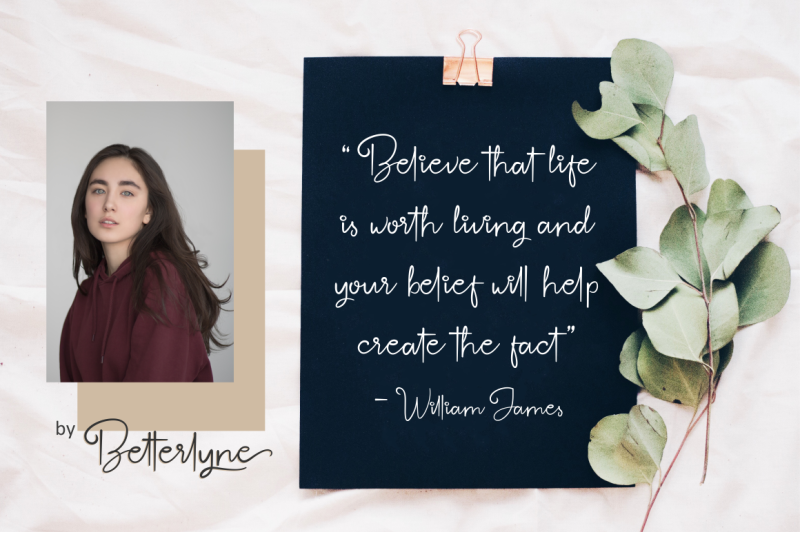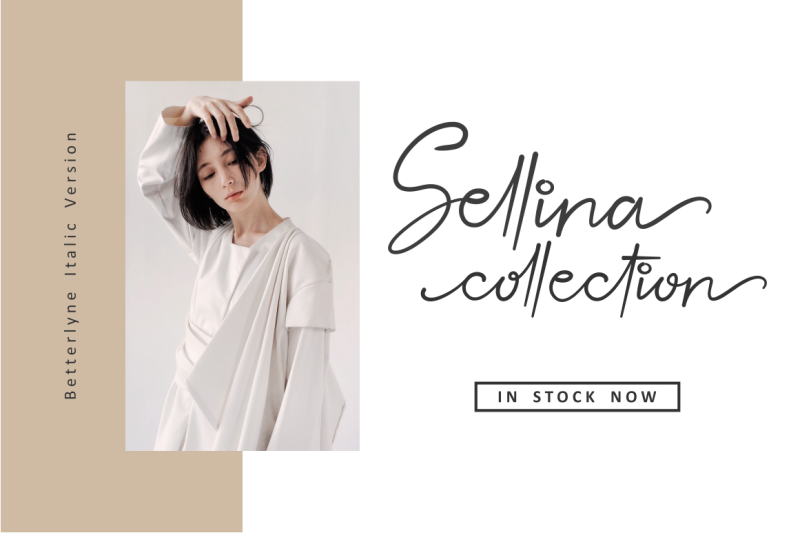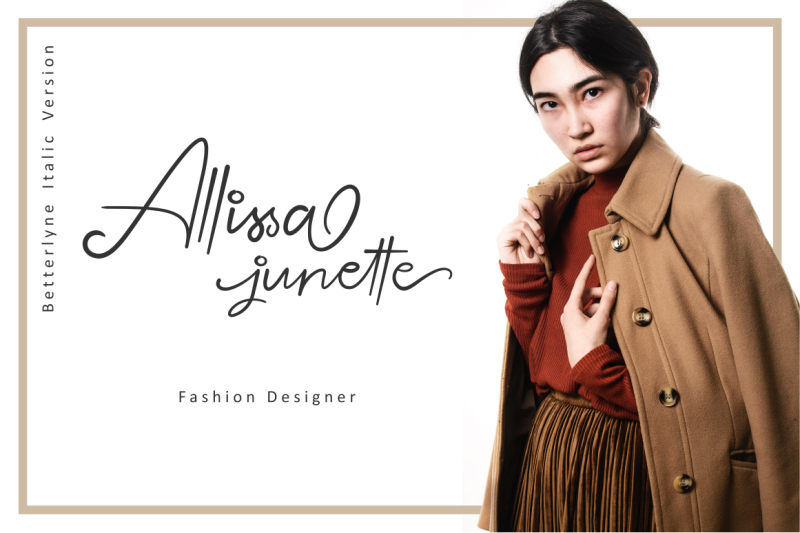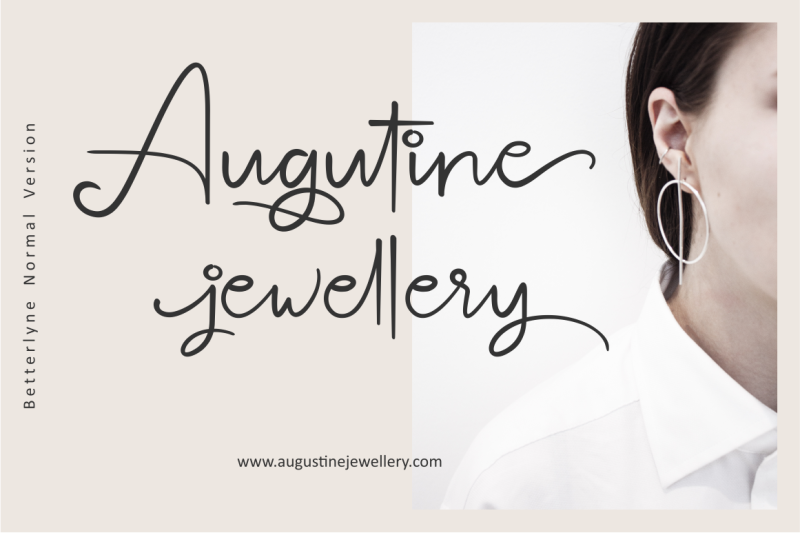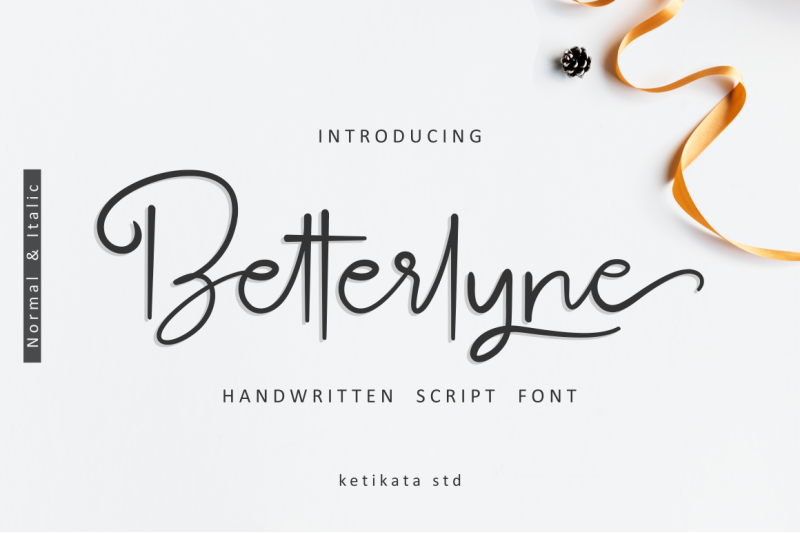
Betterlyne Script Font
Hello world..!! A new handwritten script font. This font are perfect for all types of your business projects. Introducing Betterlyne font! Betterlyne Script Font is a modern and elegant font with a lot of stylistic alternates for your beautiful project. It was made carefully so that each letter could be connected well and elegantly either using alternate or not. It’s perfect for logos, name tags, short quotes, wedding invitations, greeting cards, and much more!